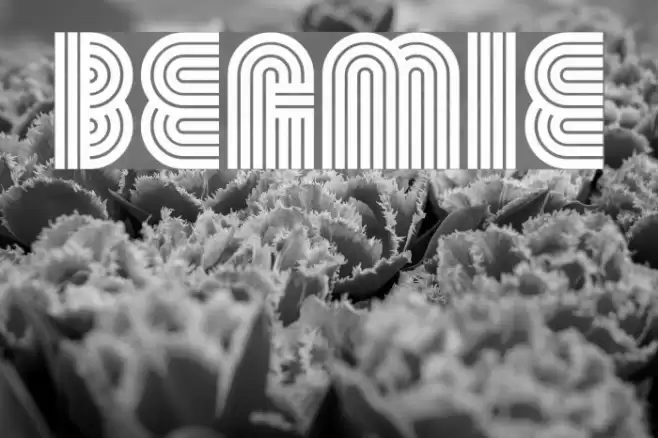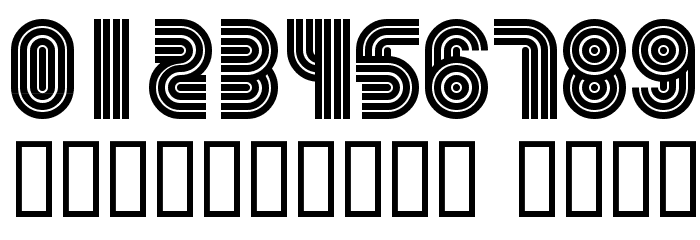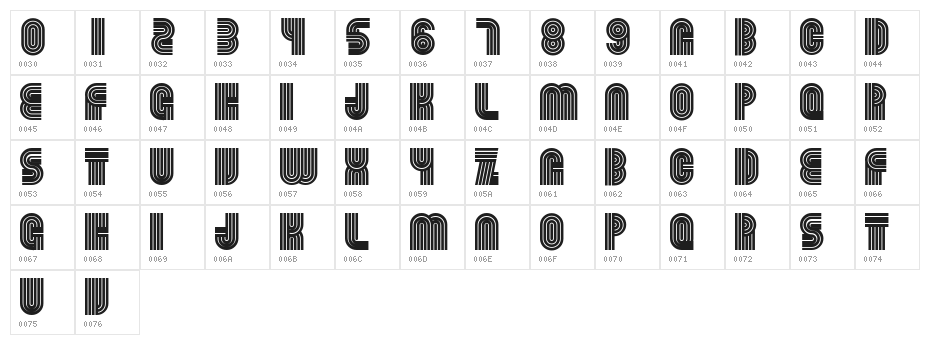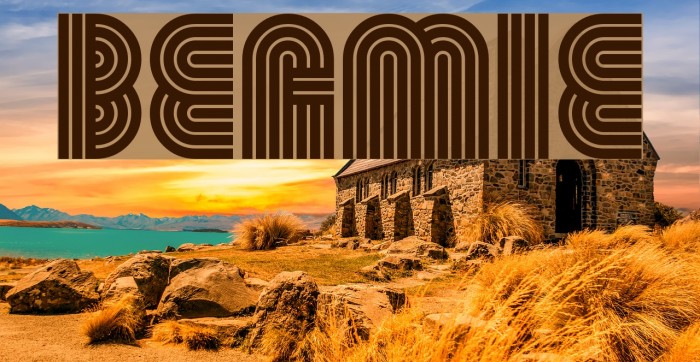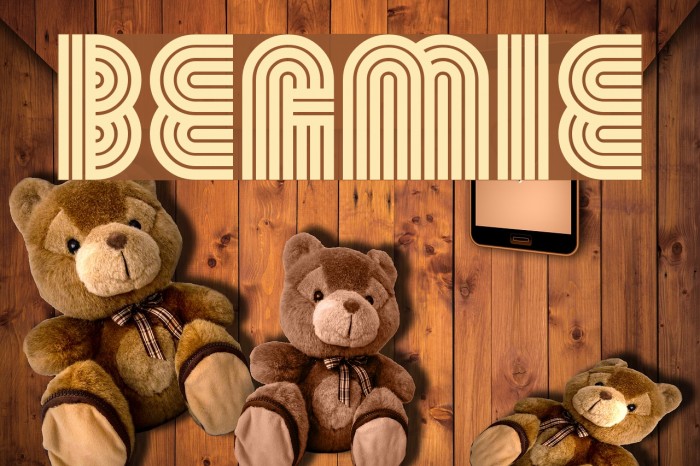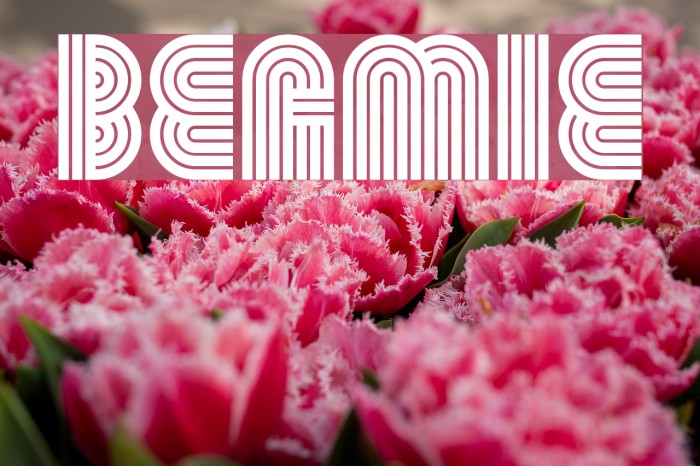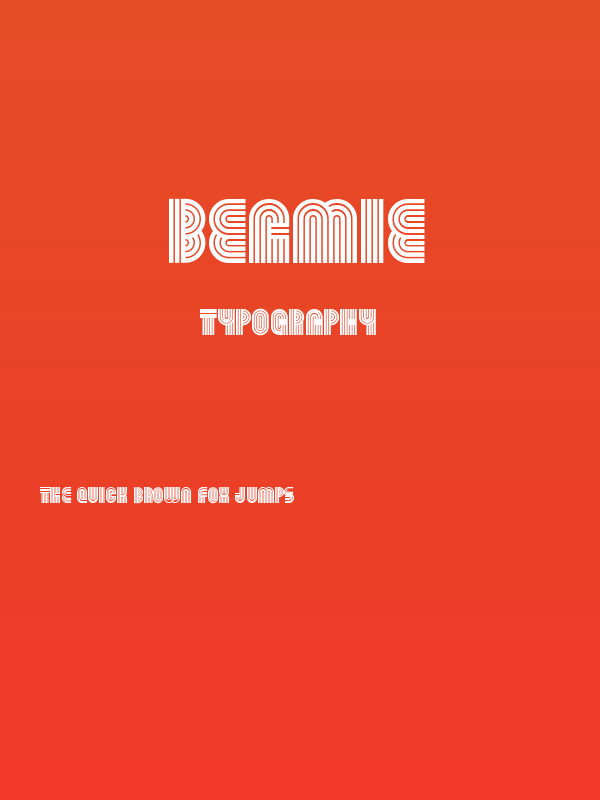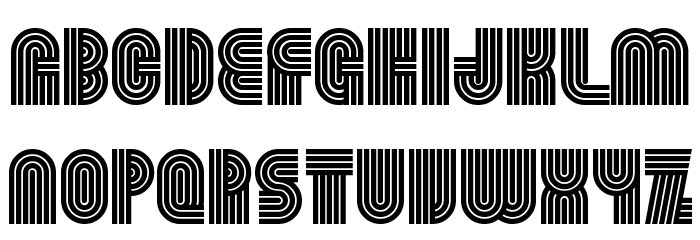
Beamie Font
Beamie Description
This font features a bold, geometric design with multiple parallel lines forming each character, creating a striking visual effect. The letters are uppercase and lowercase, with numerals and a selection of special characters. The style is reminiscent of retro and art deco influences, with a modern twist. Each character is composed of thick, uniform strokes that give the font a sense of rhythm and movement. The consistent line thickness and spacing create a cohesive and structured appearance, making it ideal for attention-grabbing designs.
A bold, geometric font with parallel lines and a retro-modern style from Decorative fonts.
- Proposed Projects: Ideal for posters, logos, branding, and any design requiring a bold, eye-catching typeface.